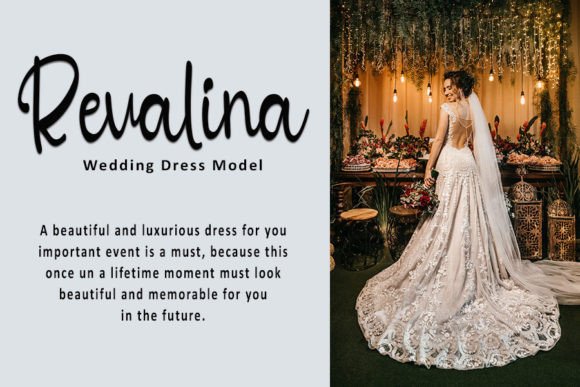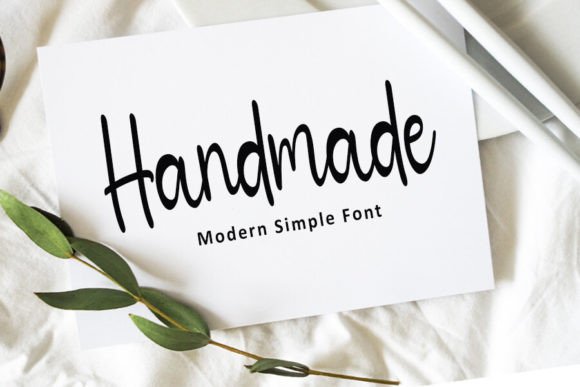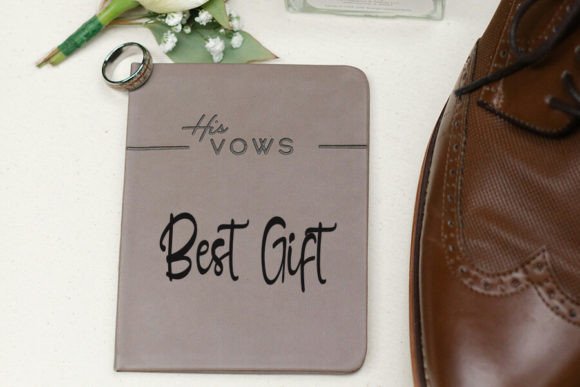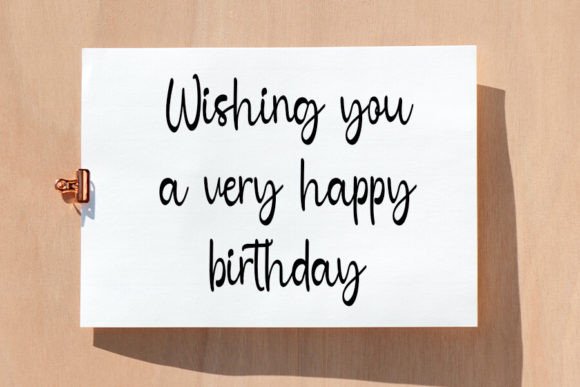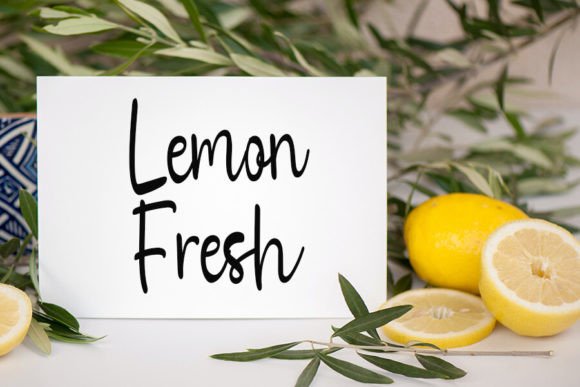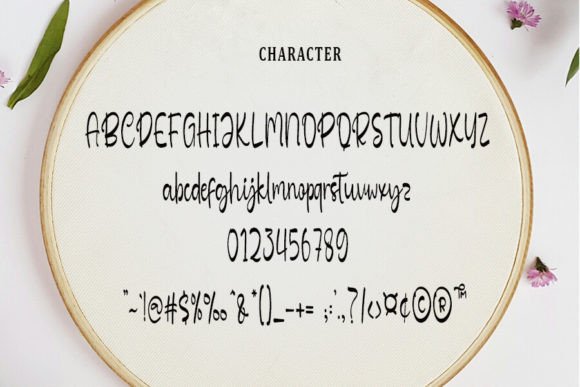
Introduction to Rising Stars Font
Rising Stars is a stylish and incredibly elegant script font.
It looks stunning on wedding invitations, thank you cards, quotes, greeting cards, logos, business cards, and every other design that needs a handwritten touch .
Rising Stars Font offers exceptional quality and versatility, making it a valuable addition to your design toolkit. Whether you’re creating for personal projects or commercial use, Rising Stars Font delivers professional results.